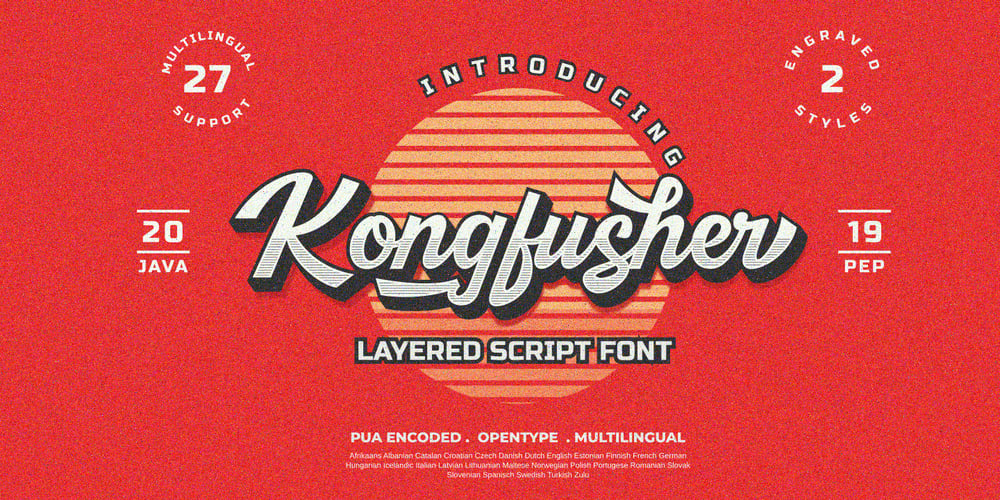
Kongfusher Font Family was designed by Java Pep and published by Java Pep. Kongfusher contains 4 styles and family package options. Kongfusher is the layered font that comes up with 2 styles engraved layer. You can save your time to mix and match the styles you need. Kongfusher font has 4 fonts including: regular, full engraved, half engraved, and extruded. This font is perfect for logotype, flyers, posters, branding and identity, or application in mobile. OpenType features can be utilized to let you choose and mix of alternates. For many applications this will be automatic. But otherwise, if your application does not support OpenType you must install an application to access the character map for access to these features. For the step to use character map you must choose “private use area” at “Unicode” options. How to use character map for access OpenType features https://youtu.be/ARD2cqZ2rdM If you have any questions or technical support don’t hesitate to comment, message or contact java.indonesian@yahoo.com. Have a nice day.